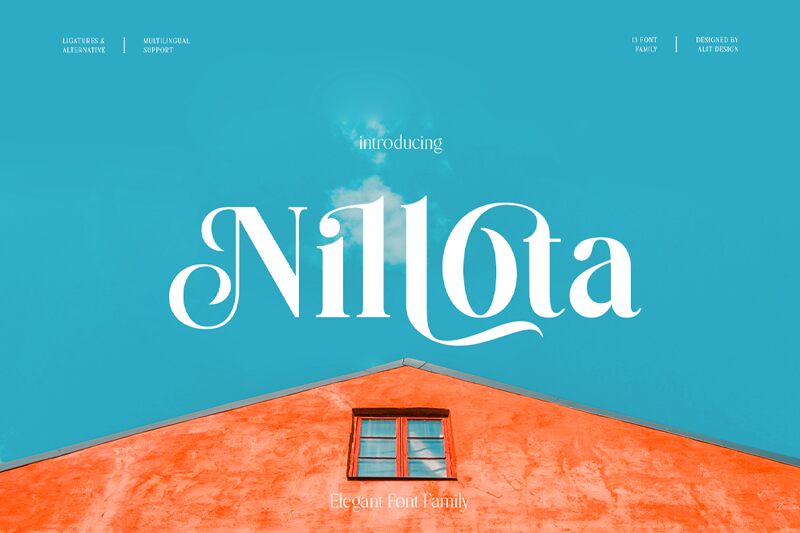
Nillota Black, a captivating serif font crafted by Alit Design, exudes an air of sophistication and timelessness. With its condensed width and bold strokes, this font commands attention, effortlessly blending traditional elegance with a modern sensibility. The sharp, angular serifs coupled with the robust letterforms create a visually striking and memorable impression, inviting the viewer to linger and engage with the text.
This versatile font lends itself well to a variety of design applications, from editorial layouts and book covers to branding and packaging. Its strong presence and legibility make it an excellent choice for headlines, titles, and impactful statements, while its condensed nature allows for space-efficient typesetting. Whether used in a sleek, minimalist design or as a bold accent in a more complex composition, Nillota Black by Alit Design is a font that elevates and enhances the overall aesthetic.